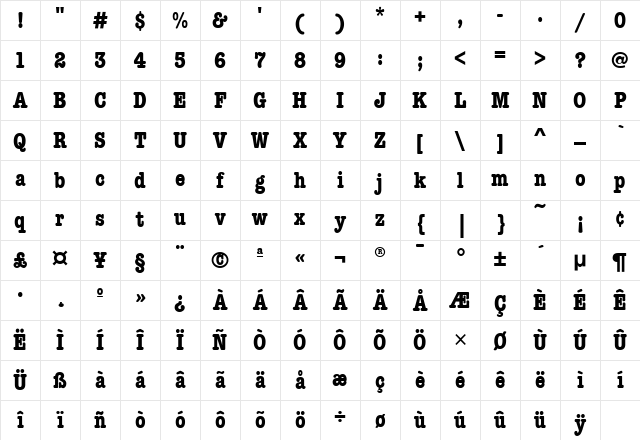
Complete AmTypewriterCdITC Bold glyph index. Displaying only characters natively supported by AmTypewriterCdITC Bold font.
AmTypewriterCdITC uses fixed-width spacing throughout, giving it the structured, systematic character associated with coding environments and technical documentation. Its bold stroke weight gives it real presence on the page.
Pro Tip: Use AmTypewriterCdITC with slightly increased line-height for extended reading - fixed-width spacing can feel dense in longer passages without extra breathing room.